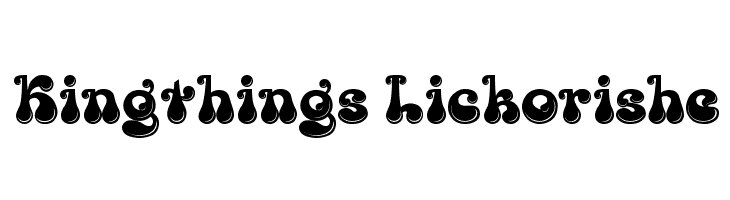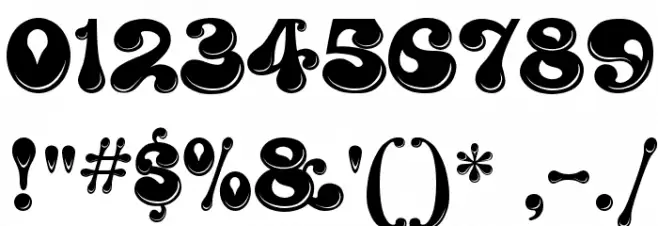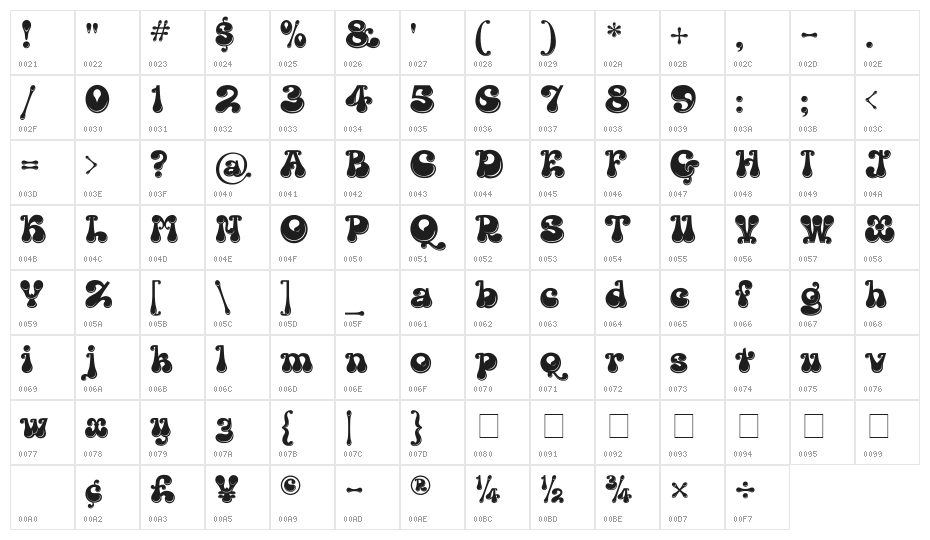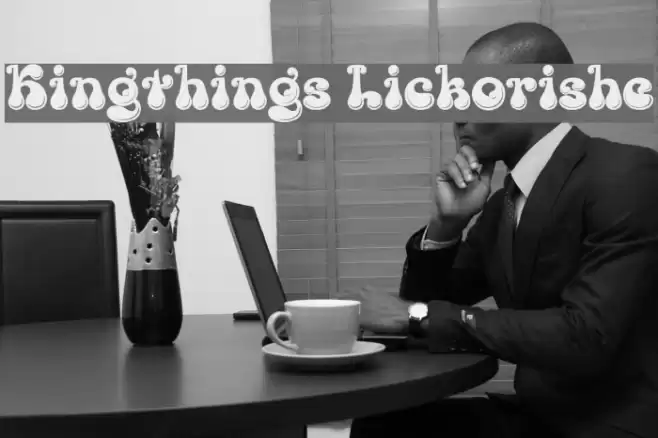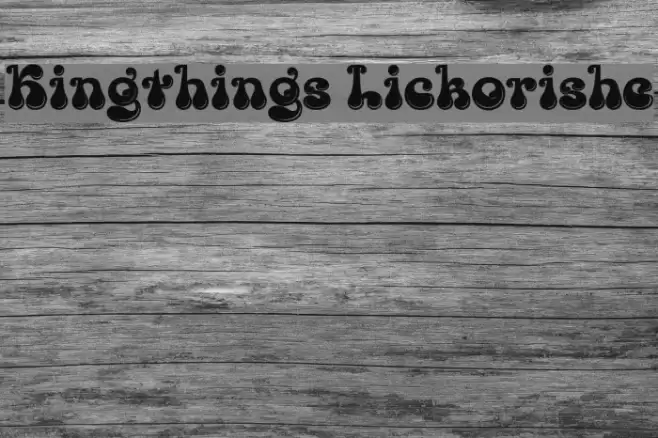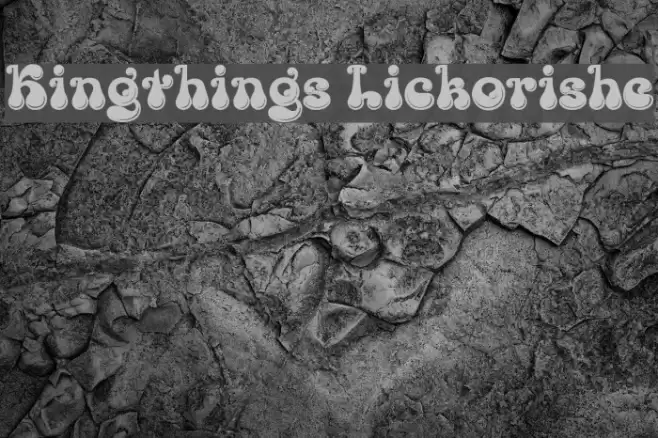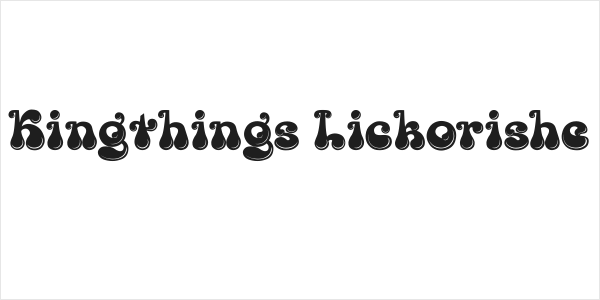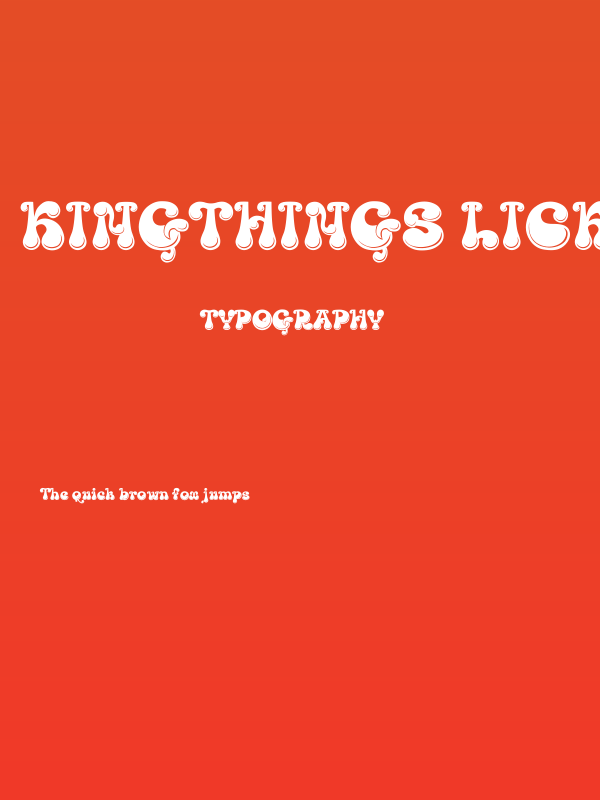
Kingthings Lickorishe Font
Kingthings Lickorishe Description
This font features a playful and whimsical design with bold, rounded characters that have a distinctive drop-like embellishment. The letters are thick and have a high contrast between the thick and thin strokes, giving them a dynamic and eye-catching appearance. The style is reminiscent of retro or vintage design, with a touch of modern flair. The characters are evenly spaced, and the overall look is decorative, making it suitable for creative and artistic projects. The font includes a full set of uppercase and lowercase letters, numbers, and a variety of special characters, allowing for versatile use in different contexts.
| Proposed Projects | Ideal for posters, logos, children's book covers, party invitations, and any project requiring a fun and eye-catching typeface. |